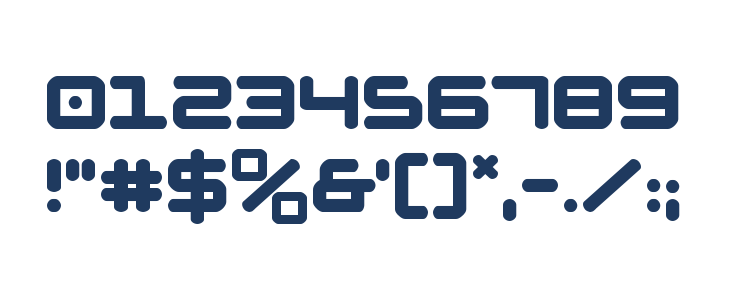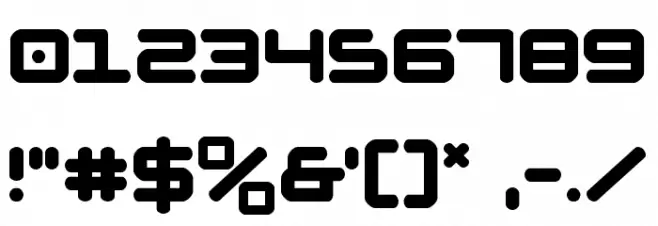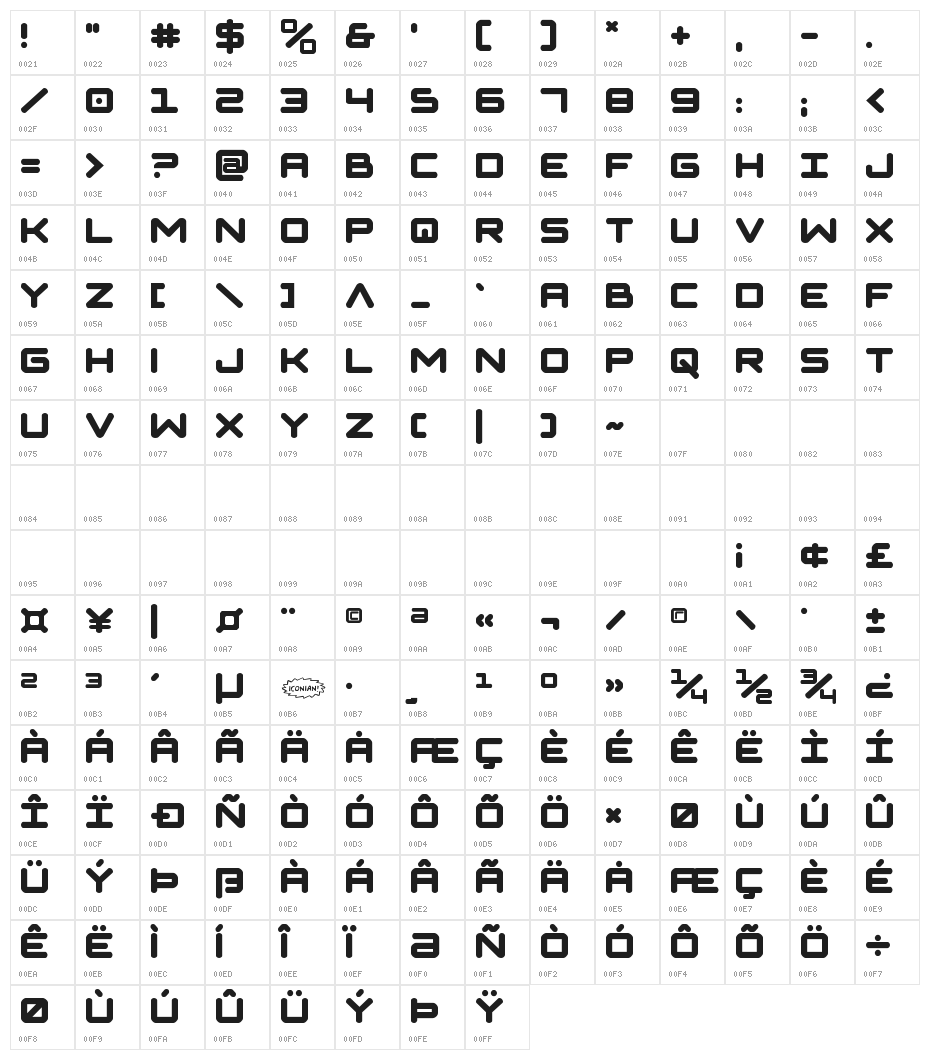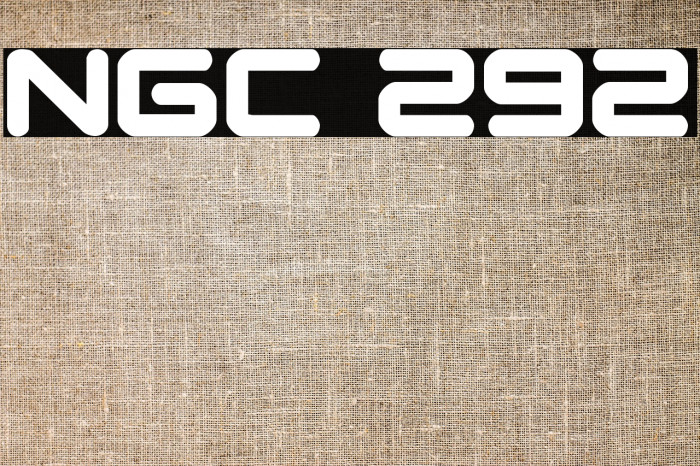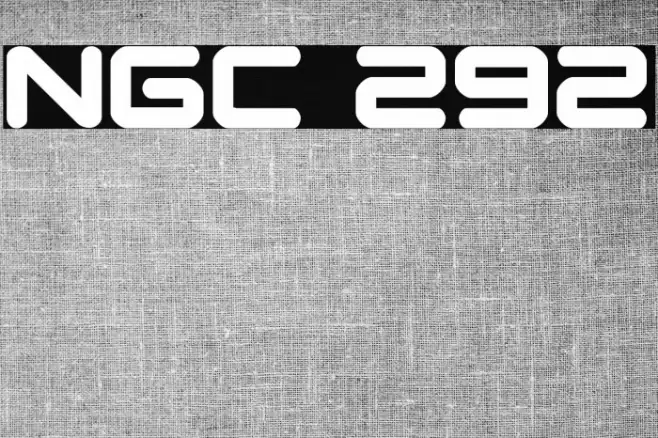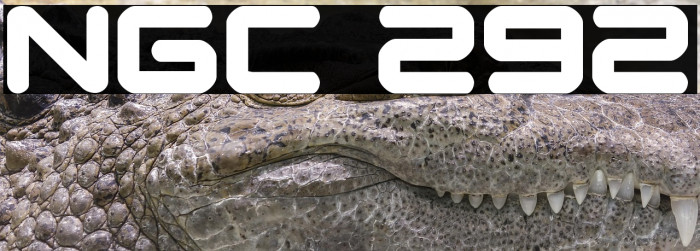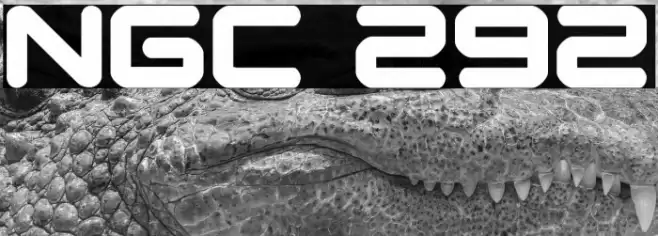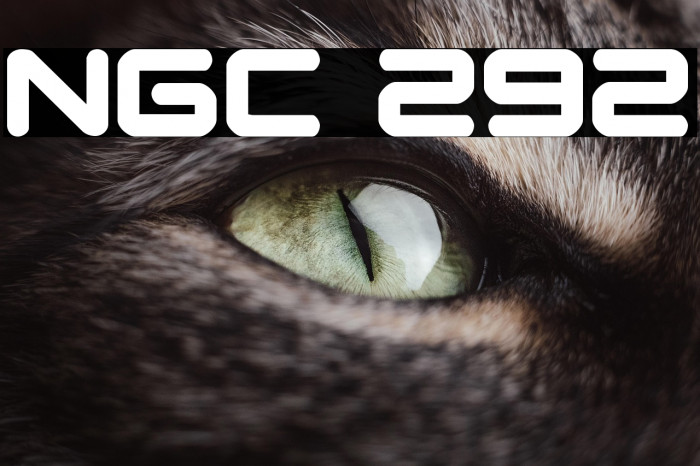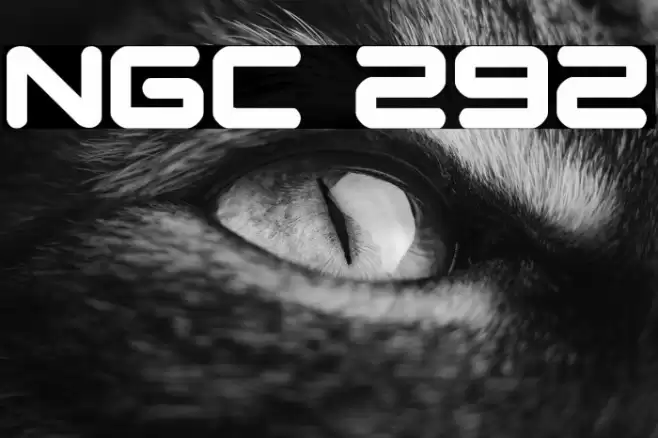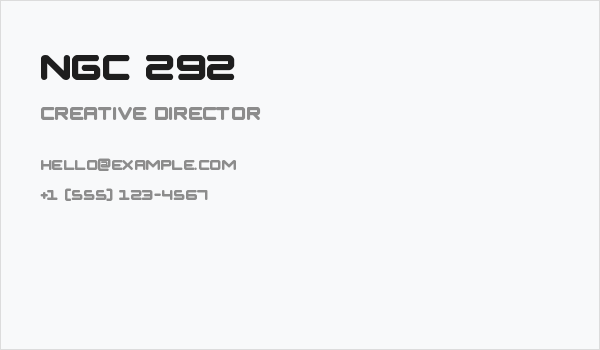
NGC 292 Font
NGC 292 Description
This font features a bold, geometric design with rounded edges, giving it a futuristic and modern appearance. The characters are uniformly thick, contributing to a strong visual presence. The uppercase letters are consistent in height, while the numerals and special characters maintain the same bold style. The overall look is clean and structured, making it suitable for digital and print media. The font's unique style is characterized by its blocky, yet smooth forms, which are both eye-catching and easy to read.
| Proposed Projects | Ideal for technology branding, video game titles, sci-fi book covers, and modern advertising. |